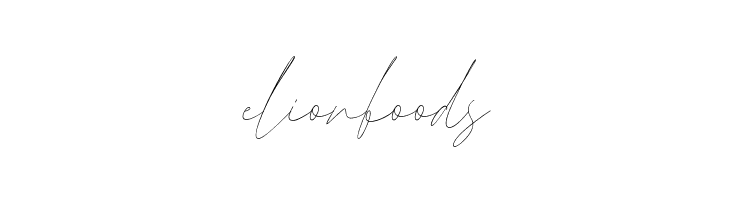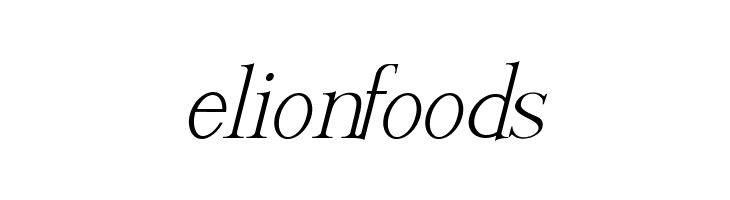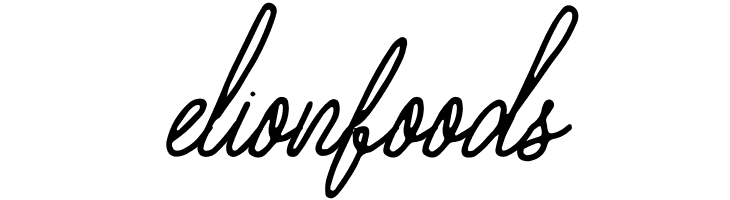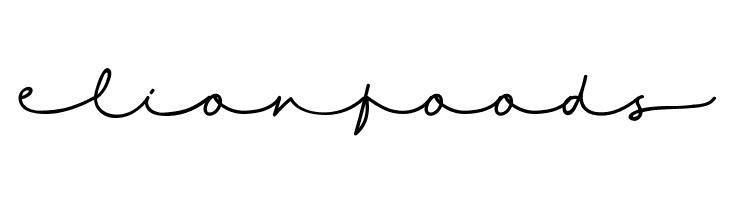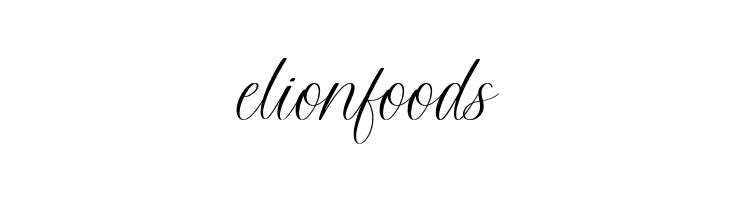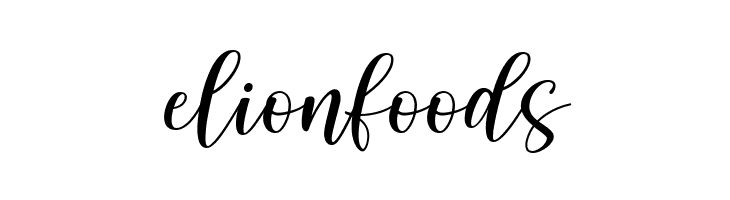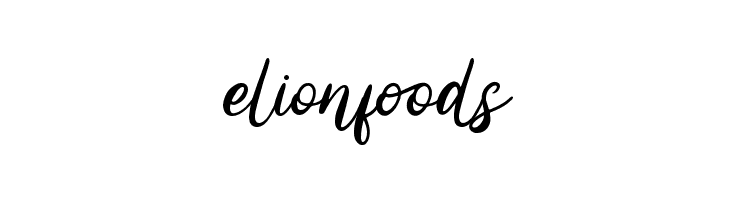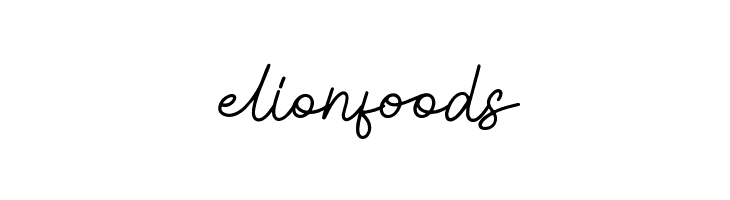
A graceful and flowing script font with elegant curves.
A graceful, handwritten script font with thin, flowing strokes.
A graceful script font with fluid, connected strokes and elegant style.
An elegant serif italic font with moderate contrast and graceful letterforms.
A graceful and elegant script font with flowing, cursive letters.
A graceful, flowing script font with a natural handwritten style.
A graceful script font with elegant, flowing calligraphic strokes.
A graceful and elegant script font with flowing, cursive strokes.
A modern, elegant script font with fluid, graceful letterforms.
An elegant, flowing script font with graceful loops and sophisticated curves.